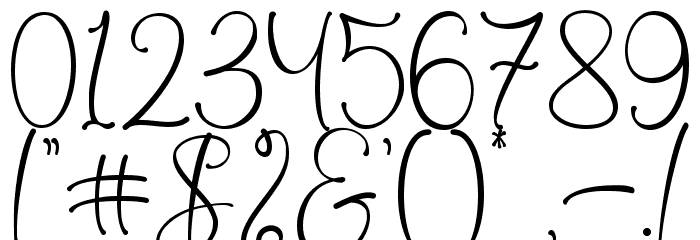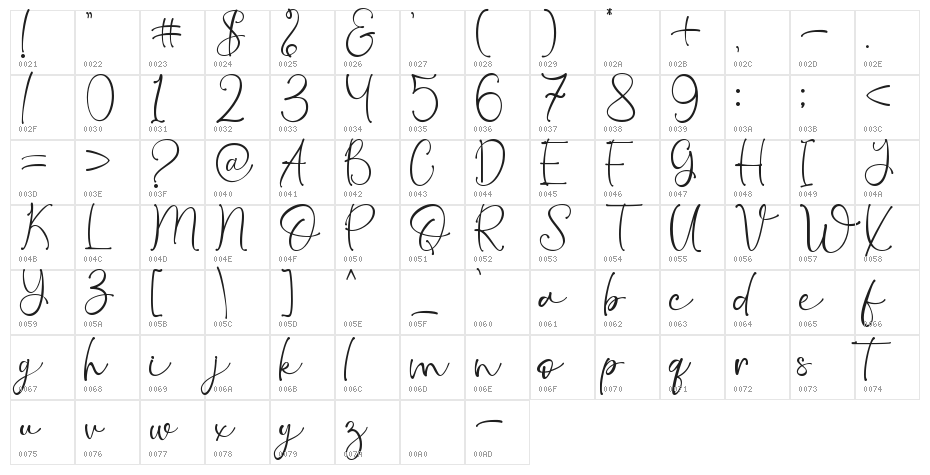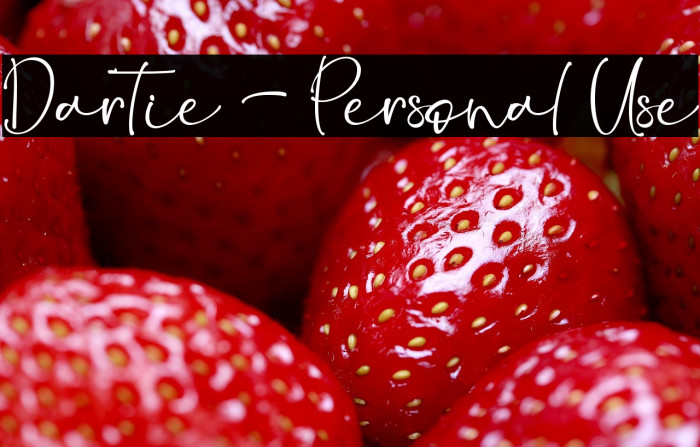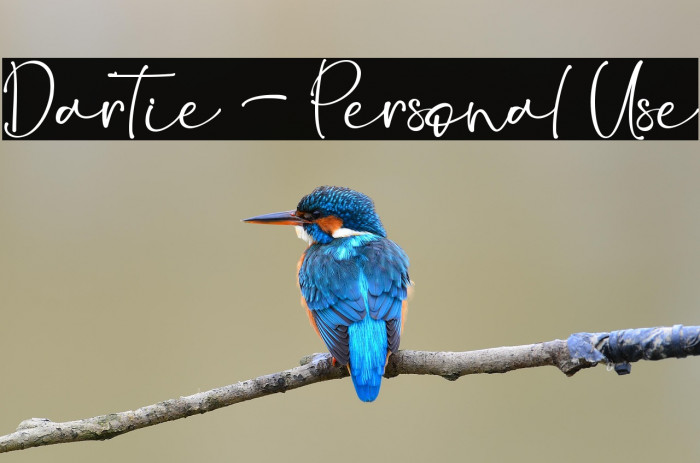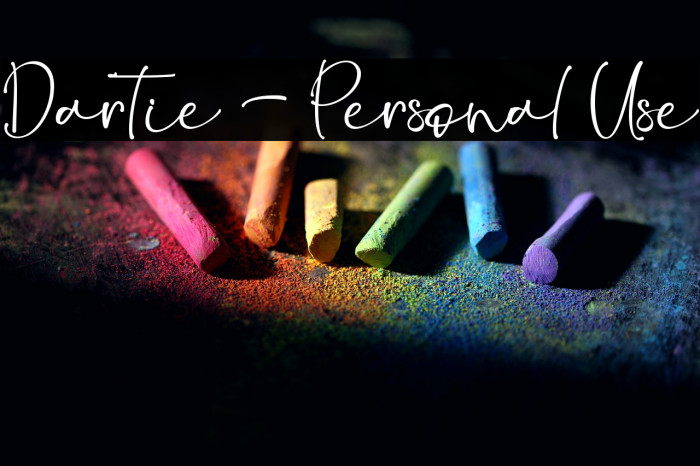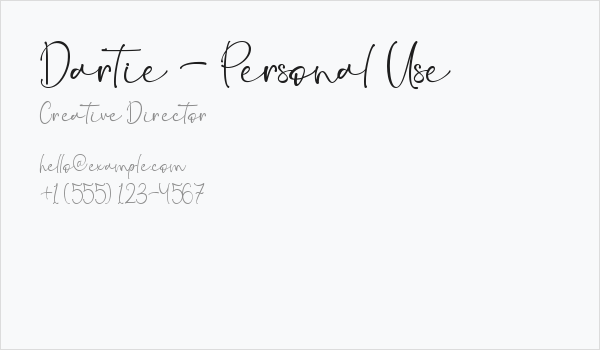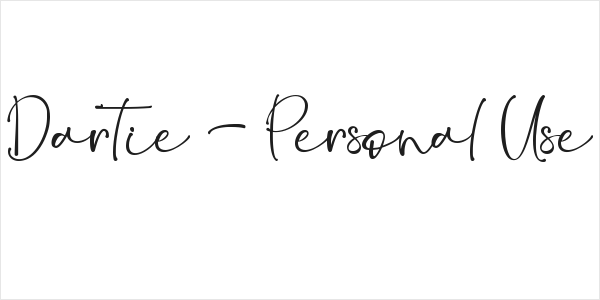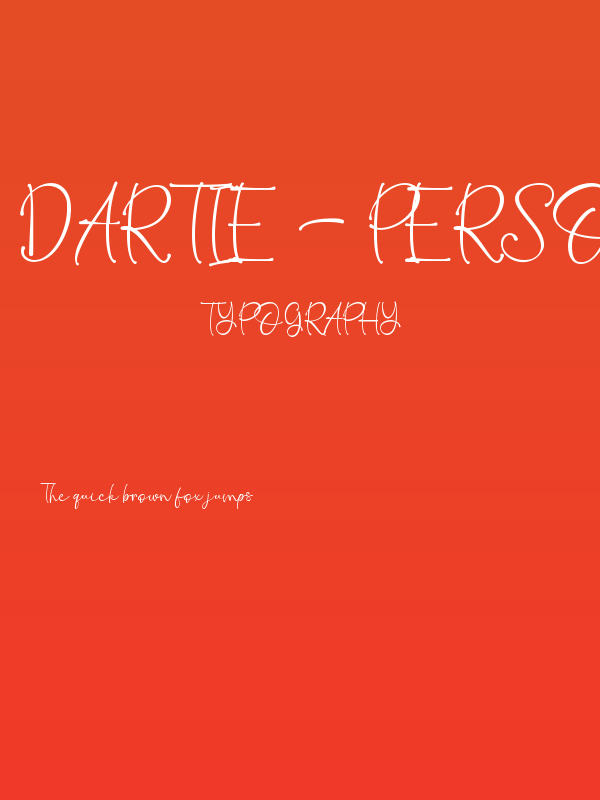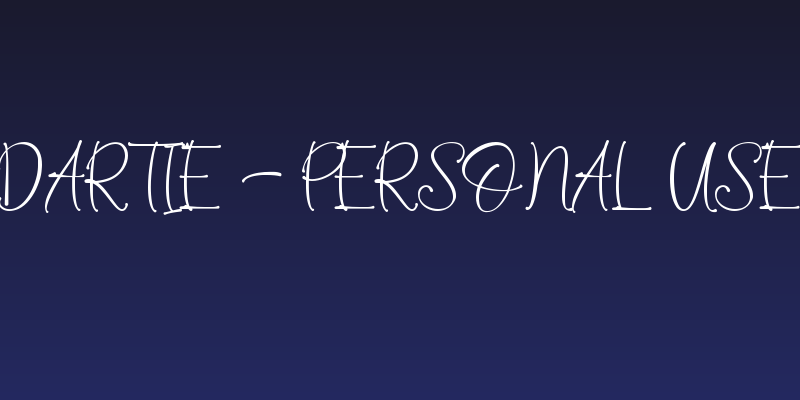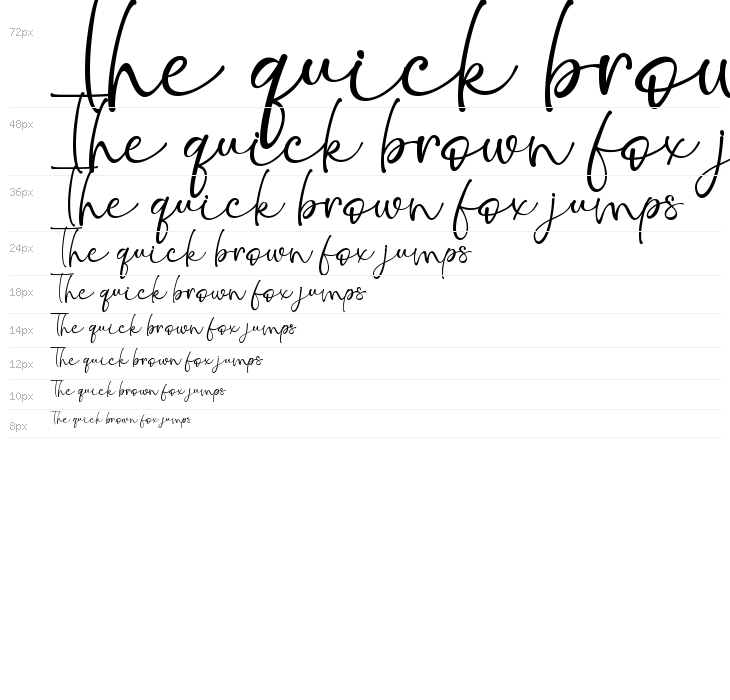
Dartie - Personal Use Font
Dartie - Personal Use Description
This font features a playful and whimsical handwritten style, characterized by its flowing and interconnected letterforms. The uppercase letters exhibit a unique charm with their tall, slender shapes and subtle loops, while the lowercase letters maintain a consistent, fluid motion that enhances readability. The numerals are crafted with a similar playful touch, ensuring they blend seamlessly with the alphabet. Special characters are thoughtfully designed to complement the overall aesthetic, adding a touch of personality. The font's organic and casual appearance makes it ideal for projects that require a personal and approachable feel.
Overall StyleCasual, Playful
Use CaseLogos, Headlines, Invitations
Proposed ProjectsGreeting cards, invitations, personal branding, social media graphics, and creative projects.